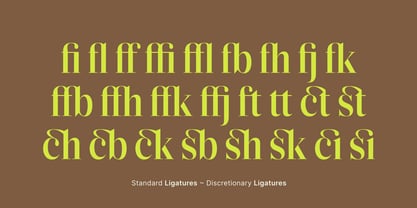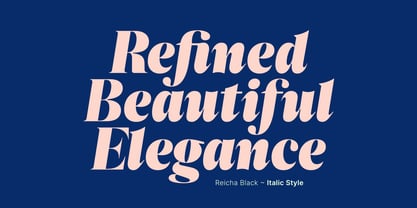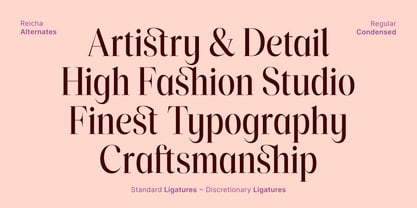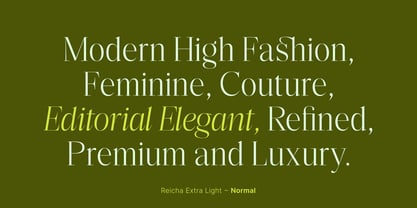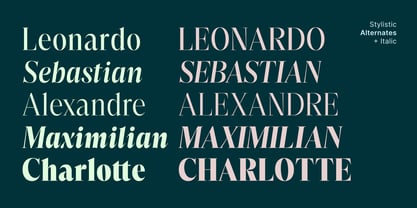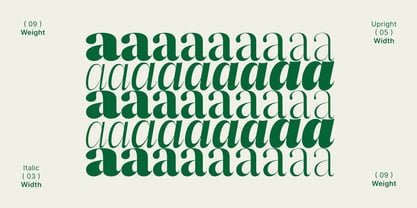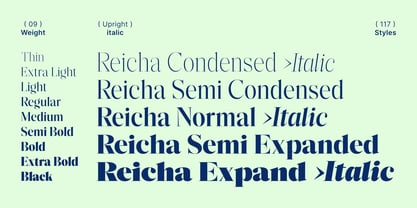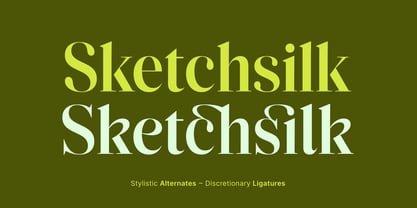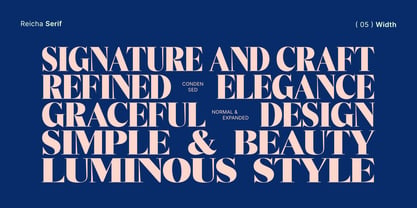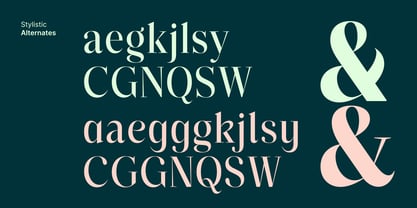
Reicha Variable
von Akbartype
Die Schriftfamilie Reicha Variable wurde von Azzura . entworfen und von Akbartype veröffentlicht. Reicha Variable enthält 3 Stile und Familienpaketoptionen. Mehr über diese Familie
Reicha is a variable serif font family that blends classical character with a contemporary editorial touch. Its sharp yet elegant serifs create a refined, sophisticated, and authoritative impression. Balanced proportions and precisely controlled stroke contrast deliver a strong, distinctive presence for headlines while maintaining clarity and comfortable readability at smaller sizes. As a variable font, Reicha offers flexible visual exploration through ranges of weight, width, and alternates, enabling smooth transitions from thin and graceful styles to black, extended, and statement-driven expressions. The width variation provides proportional control for dynamic layout needs, while the alternates feature introduces alternative character options to enrich typographic expression without sacrificing visual consistency. The subtle curves in its terminals and serif details add a distinctive artistic nuance, reinforcing its identity as a typeface with sharp yet elegant editorial presence—modern, versatile, and adaptable to premium design needs. Reicha also comes with extensive language support, ensuring broad compatibility for branding, editorial, and global communication projects.
Designer: Azzura .
Aktuelle Foundry: Akbartype